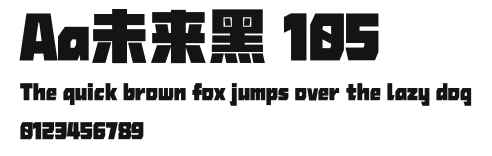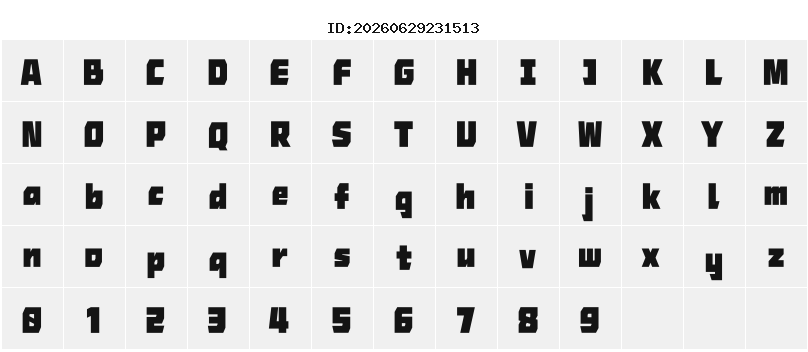
Aa未来黑 105 Preview
• Font Name: Aa未来黑 105
• Full Font Name: Aa未来黑 105
About Aa未来黑 105.ttf
Aa未来黑 105.ttf is a modern, elegant sans-serif font designed for ultimate readability and visual harmony. Perfect for branding, headlines, web design, and print materials.